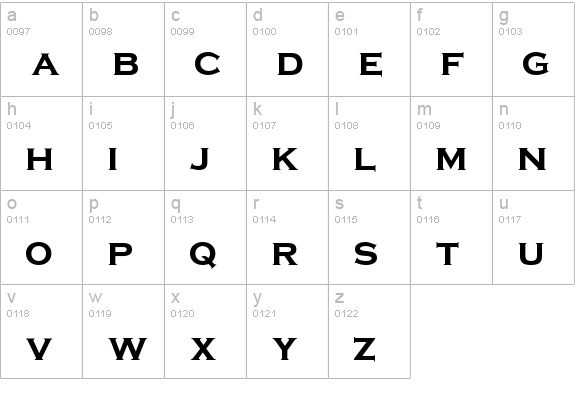
QTGraveure Bold Font Details
QTGraveure Bold is a strong, high-contrast variant in the QTGraveure typeface family \xE2\x80\x94 well suited to headlines, attention-grabbing titles, and strong calls-to-action.
Introducing QTGraveure Bold, a captivating and striking font that will add a touch of elegance and sophistication to any design project. This font is the perfect blend of classic and modern, with its bold and confident letterforms that demand attention. With its clean lines and strong presence, QTGraveure Bold is ideal for headlines, logos, and branding materials. Its bold weight gives it a commanding presence, making it perfect for making a statement or creating a bold focal point in any design. But what sets QTGraveure Bold apart is that it is not only visually stunning, but also freely available to download at FontsMarket.com. Yes, you read that right - this remarkable font can be yours at no cost! Whether you're a professional designer looking to add a new font to your collection or a beginner experimenting with typography, QTGraveure Bold is the perfect choice. Not only does QTGraveure Bold offer exceptional visual impact, but it also delivers on functionality. Its well-designed characters ensure legibility, even at smaller sizes, making it versatile for a wide range of design applications. Whether you're designing a poster, a website, or a brochure, QTGraveure Bold will make your text stand out and leave a lasting impression. The attention to detail in QTGraveure Bold is truly remarkable. Each letterform has been meticulously crafted, resulting in a font that exudes quality and craftsmanship. Its sharp edges and precise curves give it a refined and polished look, making it a reliable choice for both print and digital projects. So why wait? Don't miss out on the opportunity to download QTGraveure Bold for free at FontsMarket.com. Experience the power and versatility of this extraordinary font and unleash your creativity like never before. Elevate your designs with QTGraveure Bold and make a lasting impact today.